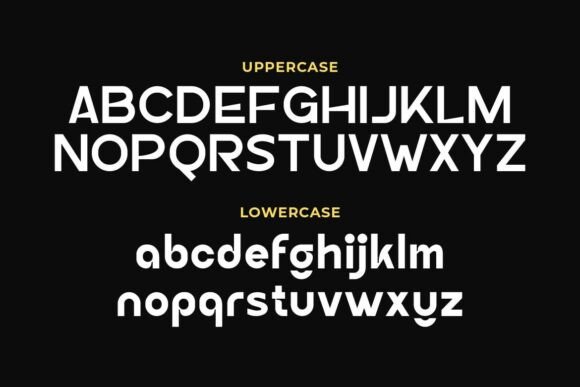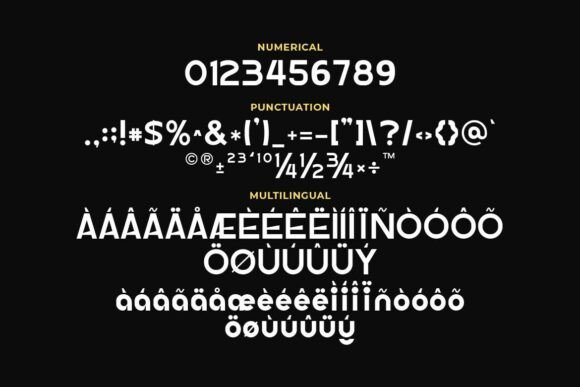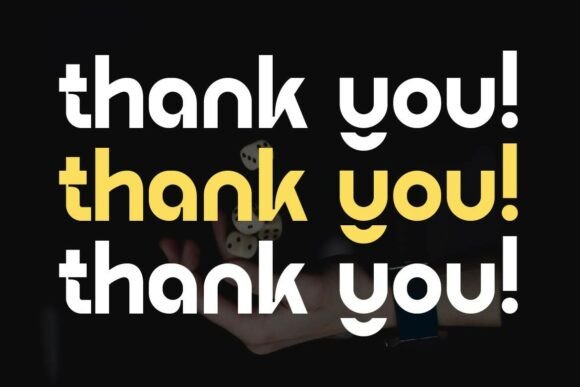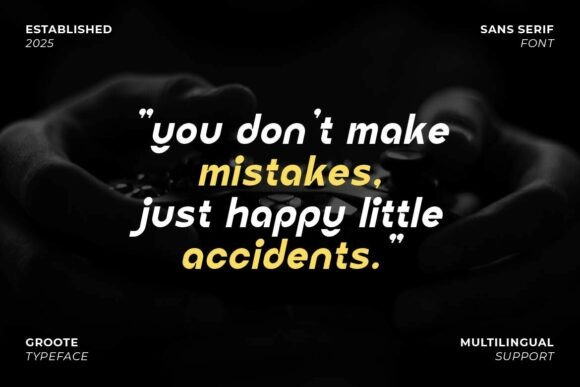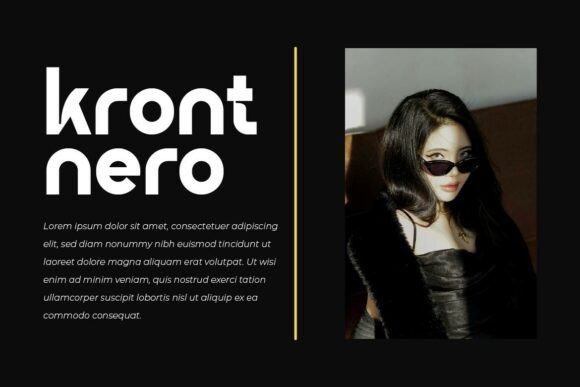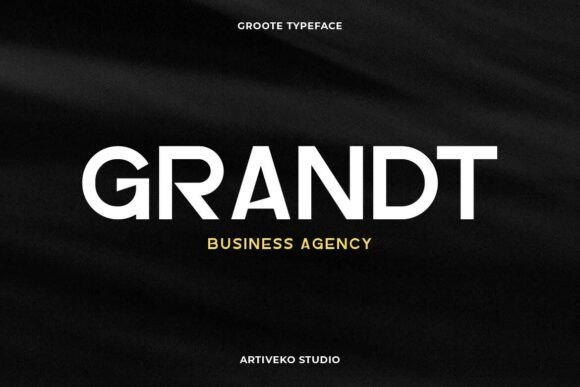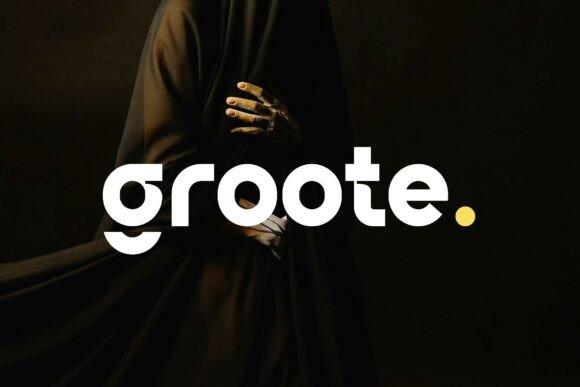
Discover the Elegance of Groote Font: A Modern Sans Serif Typeface for Sophisticated Branding
In the world of typography, a well-crafted font can make all the difference in creating a lasting impression. For designers and crafters seeking a refined aesthetic for their logo design, branding, and editorial projects, Groote Font stands out as an exceptional choice. This elegant and modern sans serif typeface is specifically designed to elevate sophisticated branding, offering a sleek and timeless look that works beautifully across various mediums.
The Characteristics of Groote Font
Groote Font boasts sleek letterforms, graceful proportions, and a minimalist approach that exudes refinement and luxury. Its modern sans serif design ensures a clean and contemporary look, making it an ideal choice for fashion labels, luxury products, editorial layouts, and digital platforms. The font’s elegance lies in its simplicity, allowing it to adapt seamlessly to various design applications.
Key Features of Groote Font
- Sleek Letterforms: Groote’s letterforms are designed with a sleek and streamlined approach, ensuring a sophisticated look that commands attention.
- Graceful Proportions: The font’s proportions are carefully crafted to create a harmonious balance between form and function, making it a joy to read and visually appealing.
- Timeless Minimalism: Groote’s minimalist design ensures a timeless look that won’t go out of style, making it a valuable asset for any brand looking to establish a lasting visual identity.
Applications of Groote Font
Groote Font’s versatility makes it an excellent choice for a wide range of design applications, including:
- Fashion Labels: Groote’s sleek and sophisticated design makes it an ideal choice for fashion brands looking to establish a luxurious and high-end visual identity.
- Luxury Products: The font’s elegance and refinement make it perfect for luxury product branding, adding a touch of sophistication to any product.
- Editorial Layouts: Groote’s readability and aesthetic appeal make it an excellent choice for editorial layouts, including magazines, newspapers, and online publications.
- Digital Platforms: The font’s clean and modern design ensures a seamless digital experience, making it suitable for websites, mobile apps, and social media platforms.
Why Choose Groote Font?
With Groote Font, designers and crafters can elevate their branding and design projects with a refined and sophisticated aesthetic. Here are just a few reasons why Groote stands out:
- Unique and Memorable: Groote’s distinctive design ensures a unique and memorable visual identity that sets brands apart from the competition.
- High-Quality Typography: The font is crafted with attention to detail, ensuring a high-quality typographic experience that reflects positively on any brand.
- Versatility: Groote’s adaptability makes it suitable for a wide range of design applications, from print to digital.
Groote Font is an exceptional choice for designers and crafters seeking a modern sans serif typeface that exudes elegance and sophistication. Its sleek letterforms, graceful proportions, and timeless minimalism make it an ideal choice for luxury branding, fashion labels, editorial layouts, and digital platforms. With Groote Font, brands can establish a refined and memorable visual identity that sets them apart from the competition.
Whether you’re a designer looking to elevate your branding projects or a crafter seeking a high-quality font for your creative endeavors, Groote Font is an excellent choice. Experience the elegance and sophistication of Groote Font today and discover a world of limitless design possibilities.